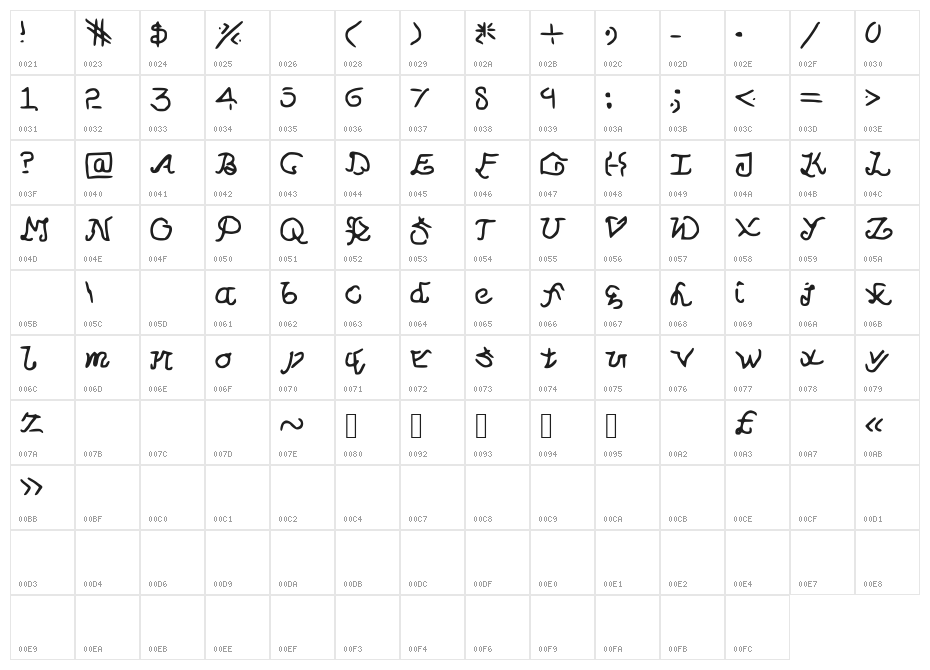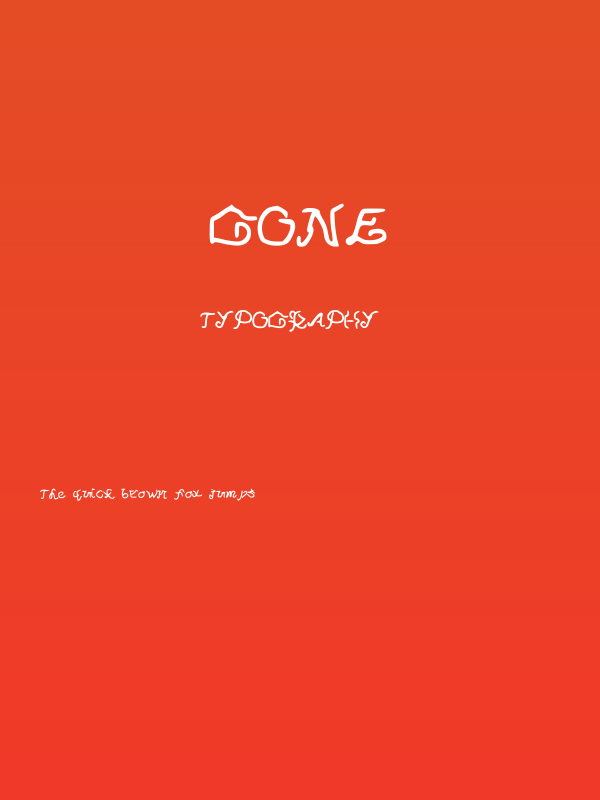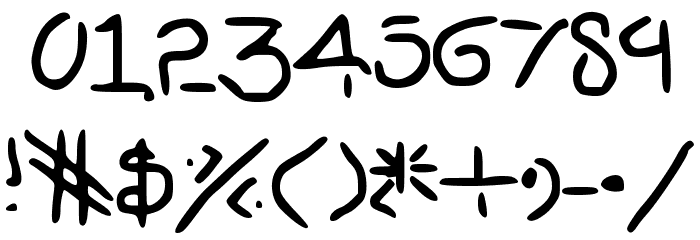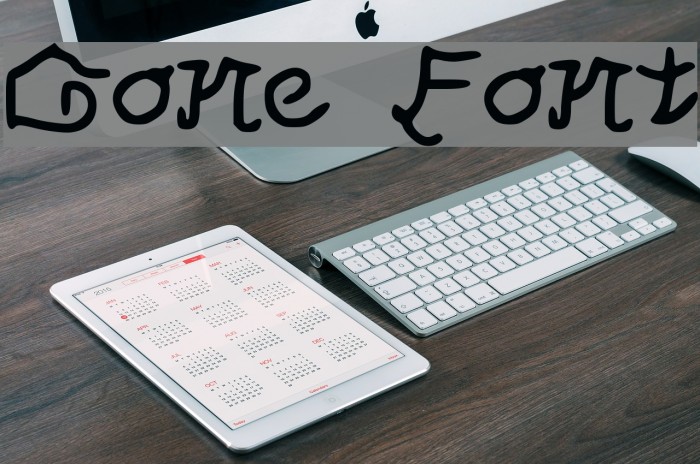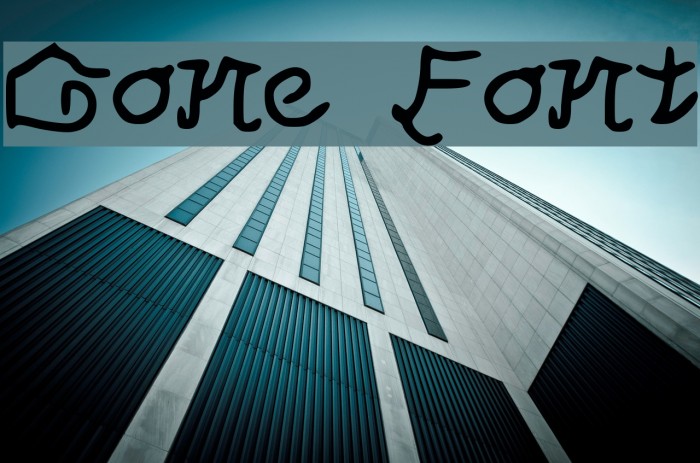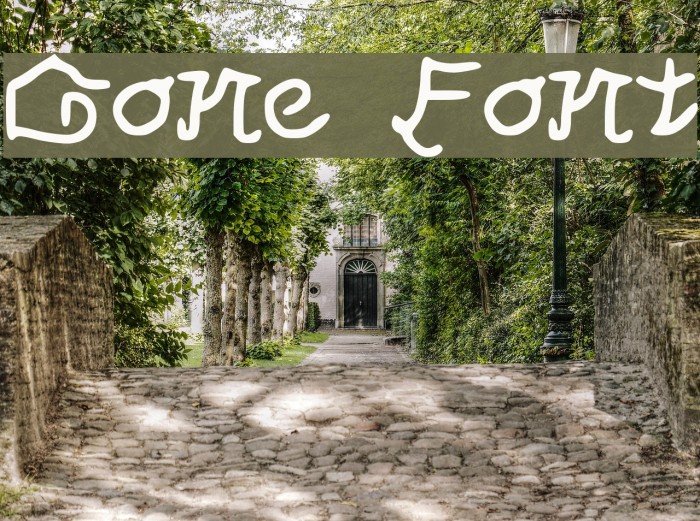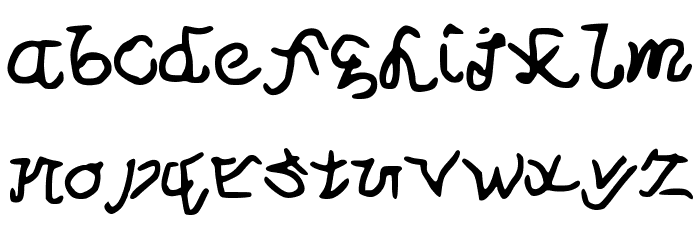
Gone Font
Gone Description
This font features a unique, artistic style with a playful and whimsical appearance. The characters are crafted with a hand-drawn aesthetic, showcasing irregular curves and varying stroke thicknesses that add a dynamic and lively feel. The uppercase and lowercase letters maintain a consistent flow, while the numbers and special characters complement the overall design with their quirky shapes. This font stands out with its decorative elements, making it suitable for creative and informal applications.
| Proposed Projects | Ideal for children's book covers, greeting cards, playful branding, and artistic posters. |